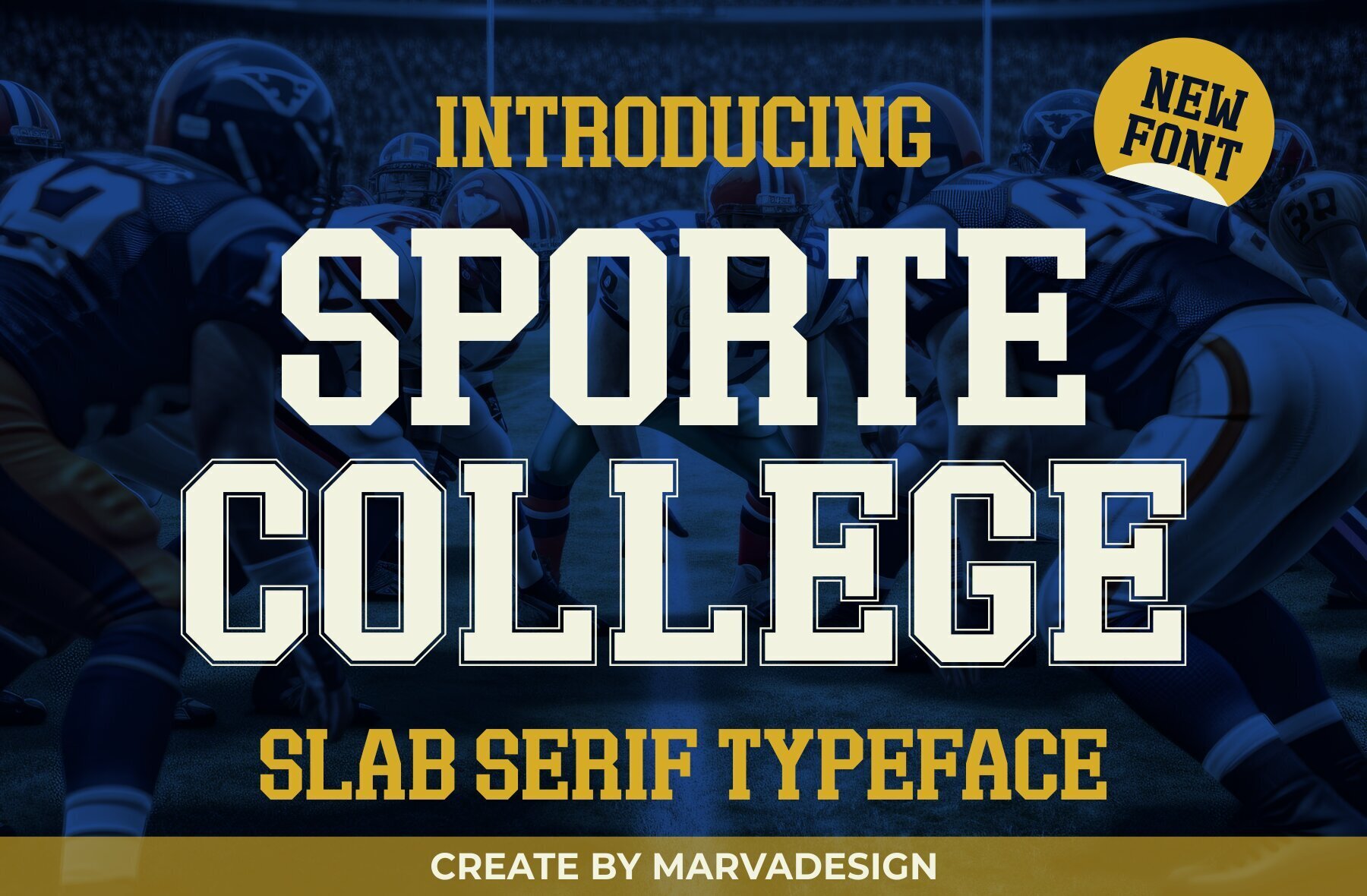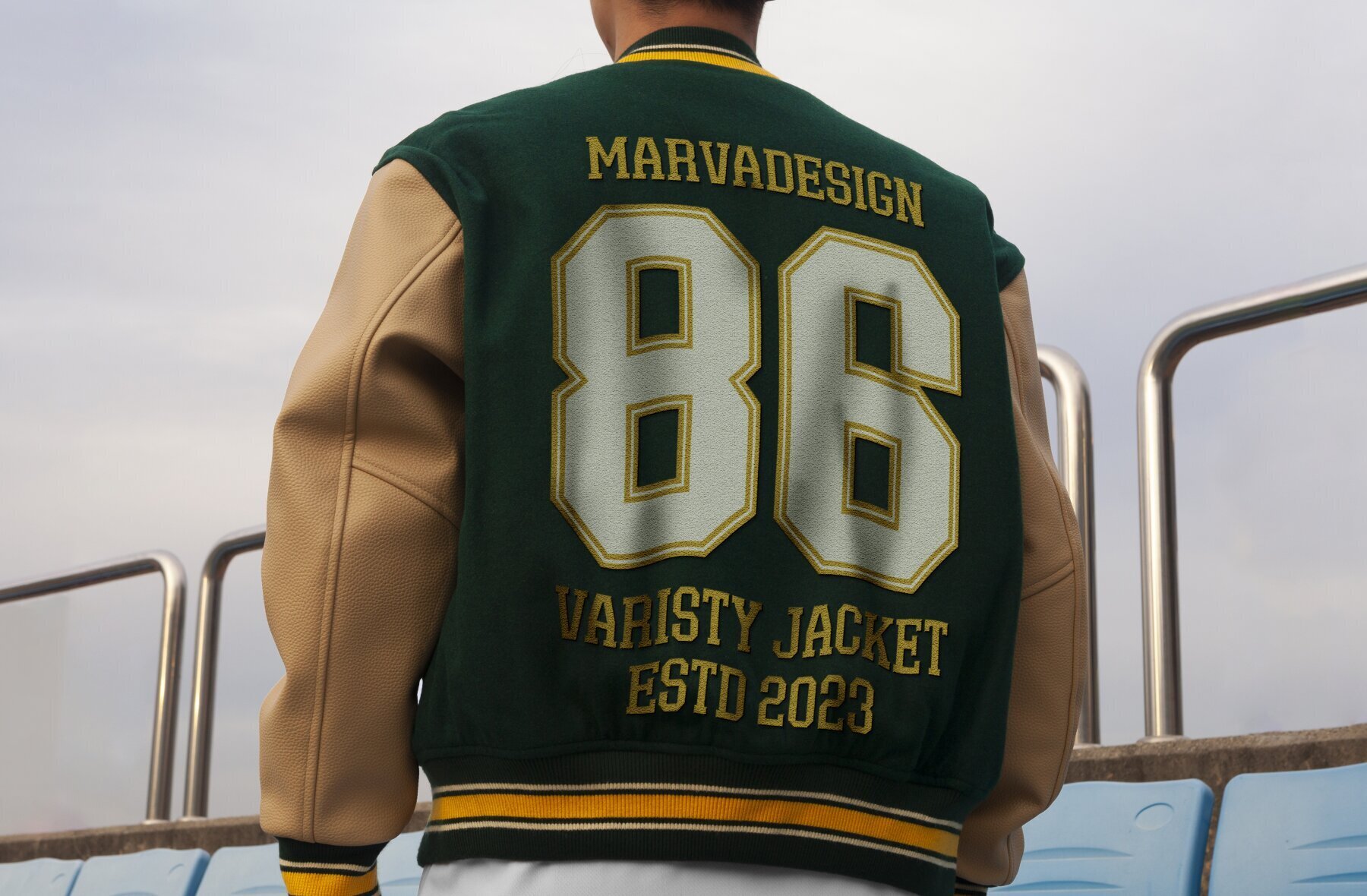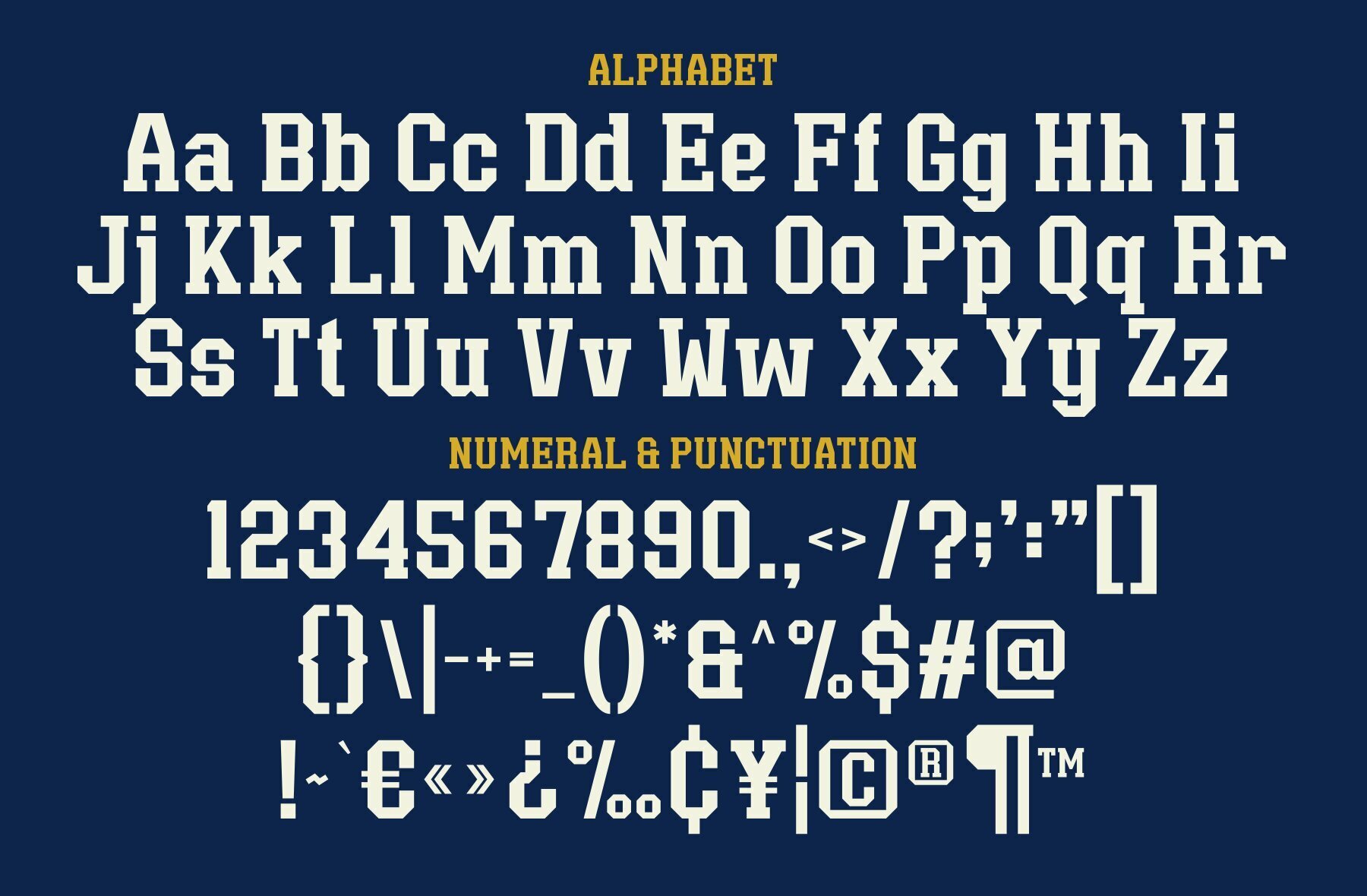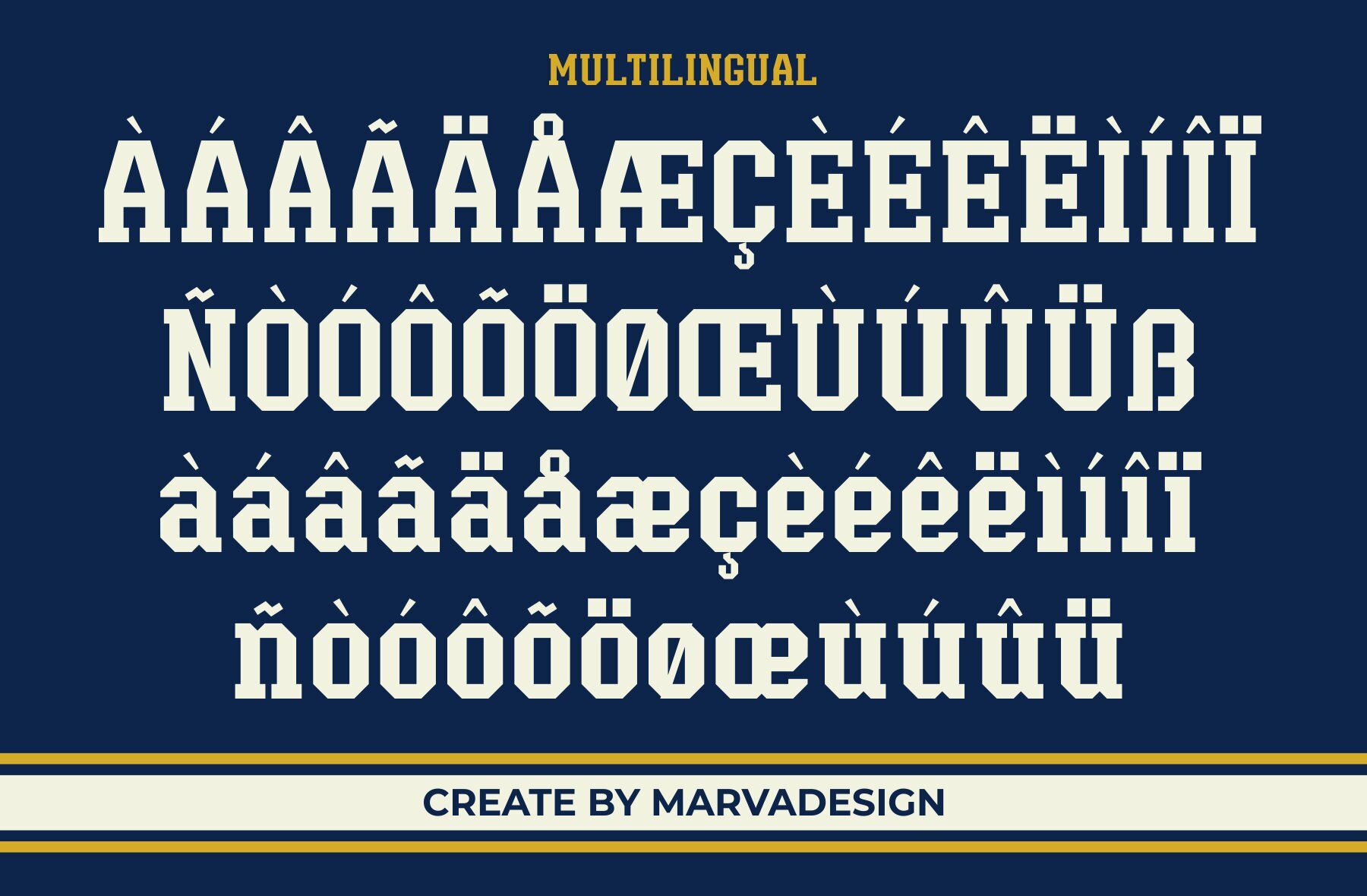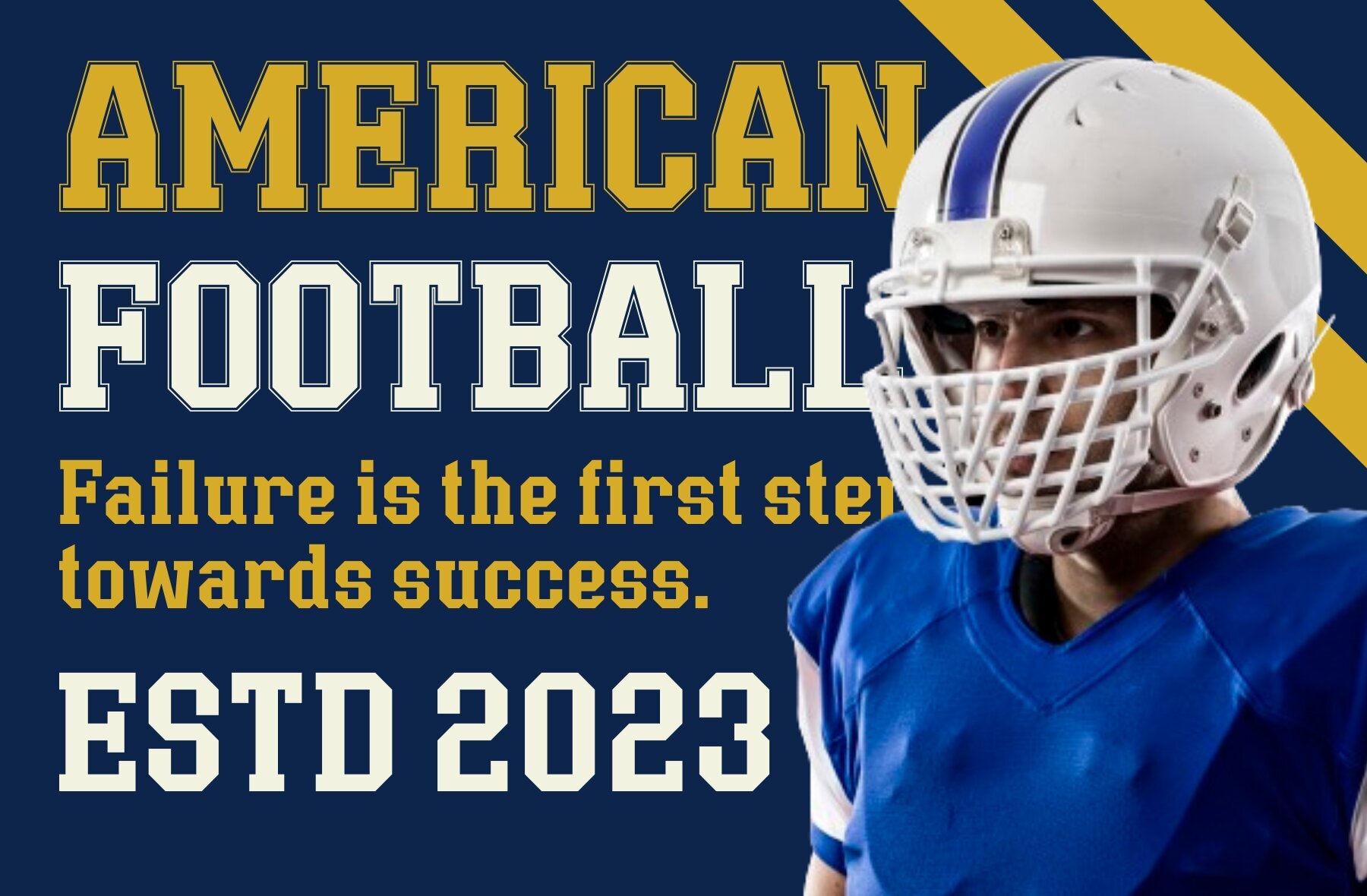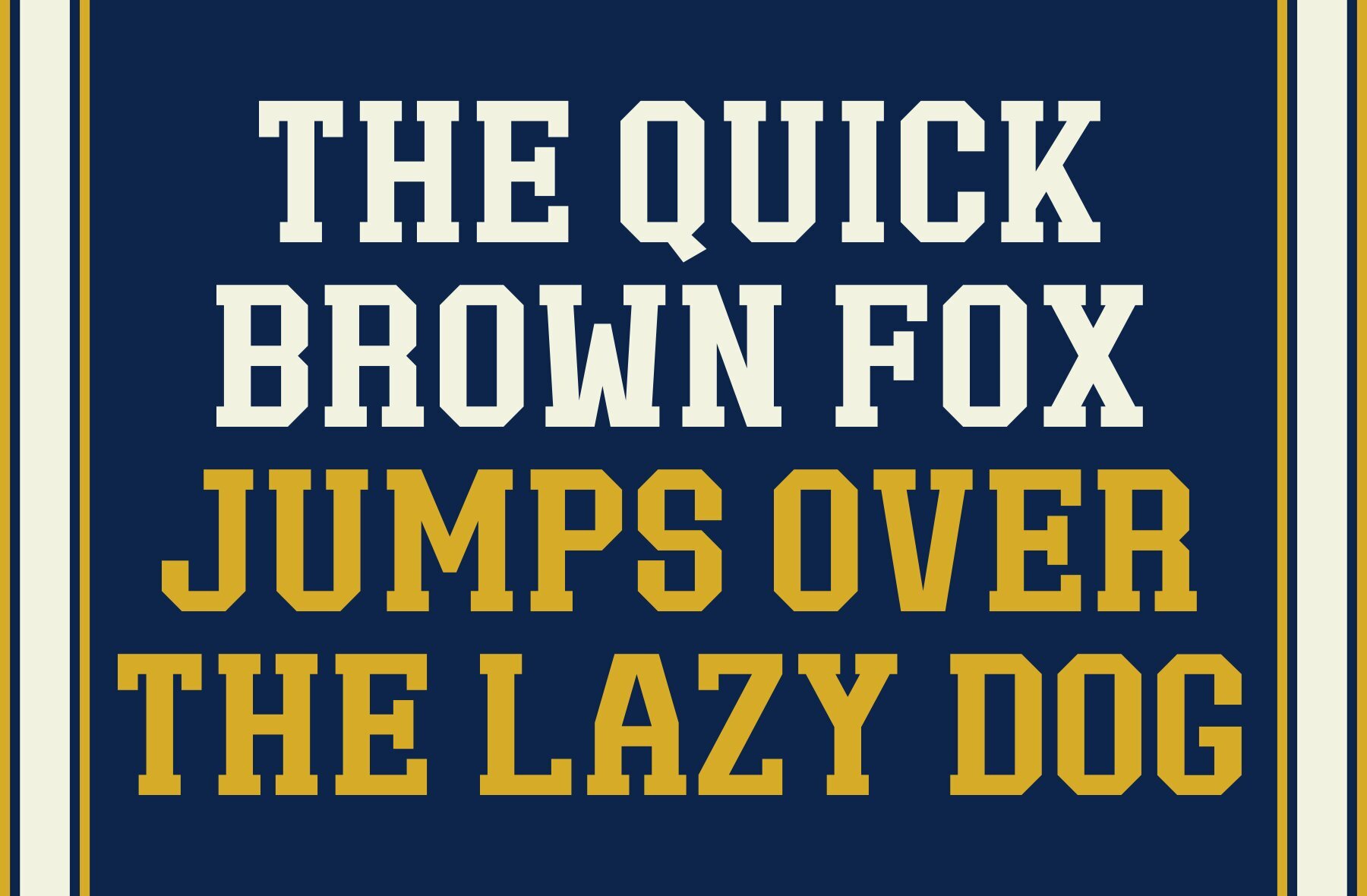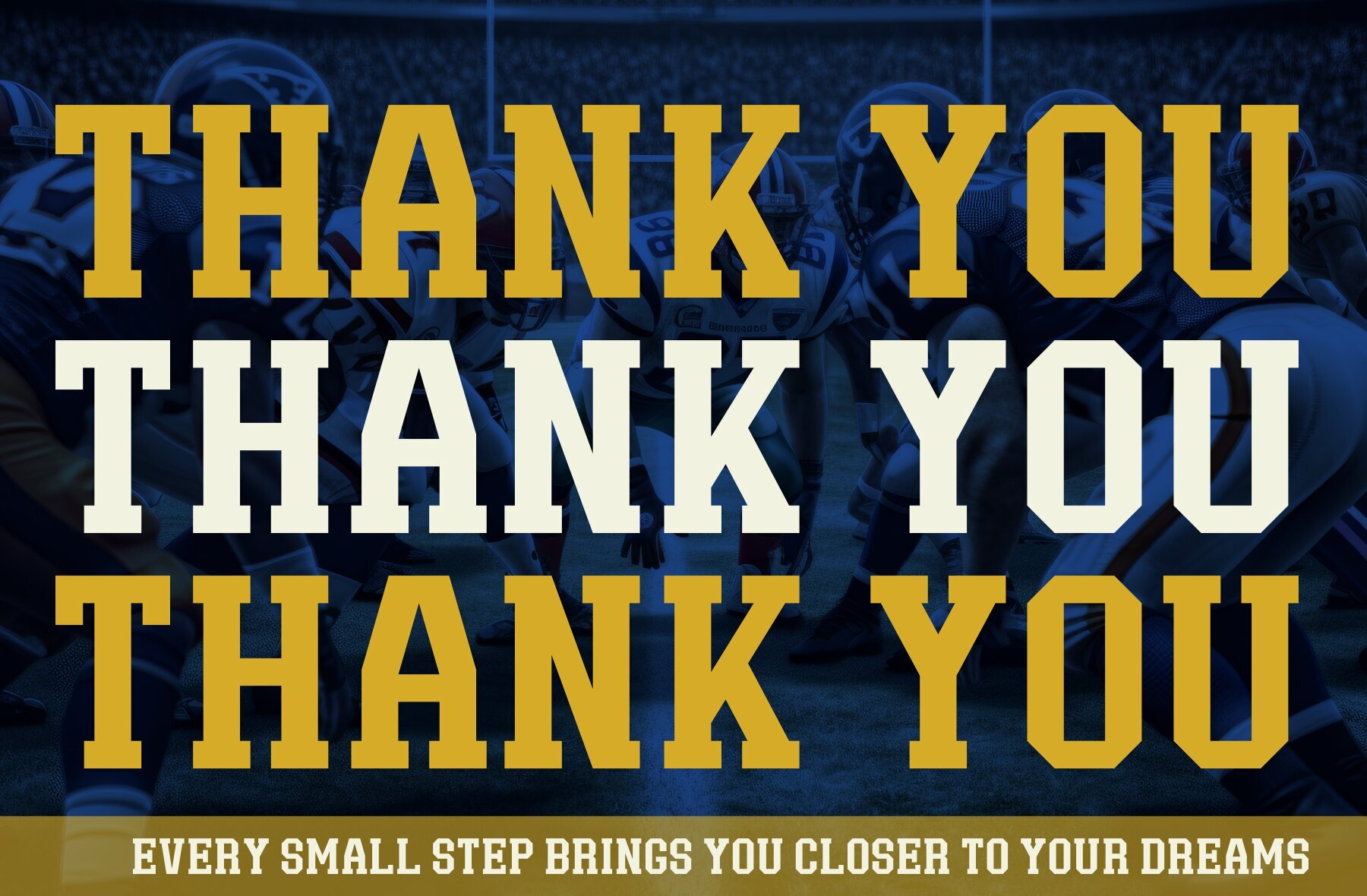
Sporte College: Classic Slab Font for Bold Designs
Sporte College is a bold and authentic slab display font, perfect for making a statement in various branding projects. Whether you're working on a logo, template design, or product packaging, this font shines across a wide range of applications.
• Bold Display – Designed to stand out in any context.
• Versatile Use – Ideal for logos, templates, and product designs.
• Comprehensive Character Set – Includes uppercase, lowercase, and multilingual support.